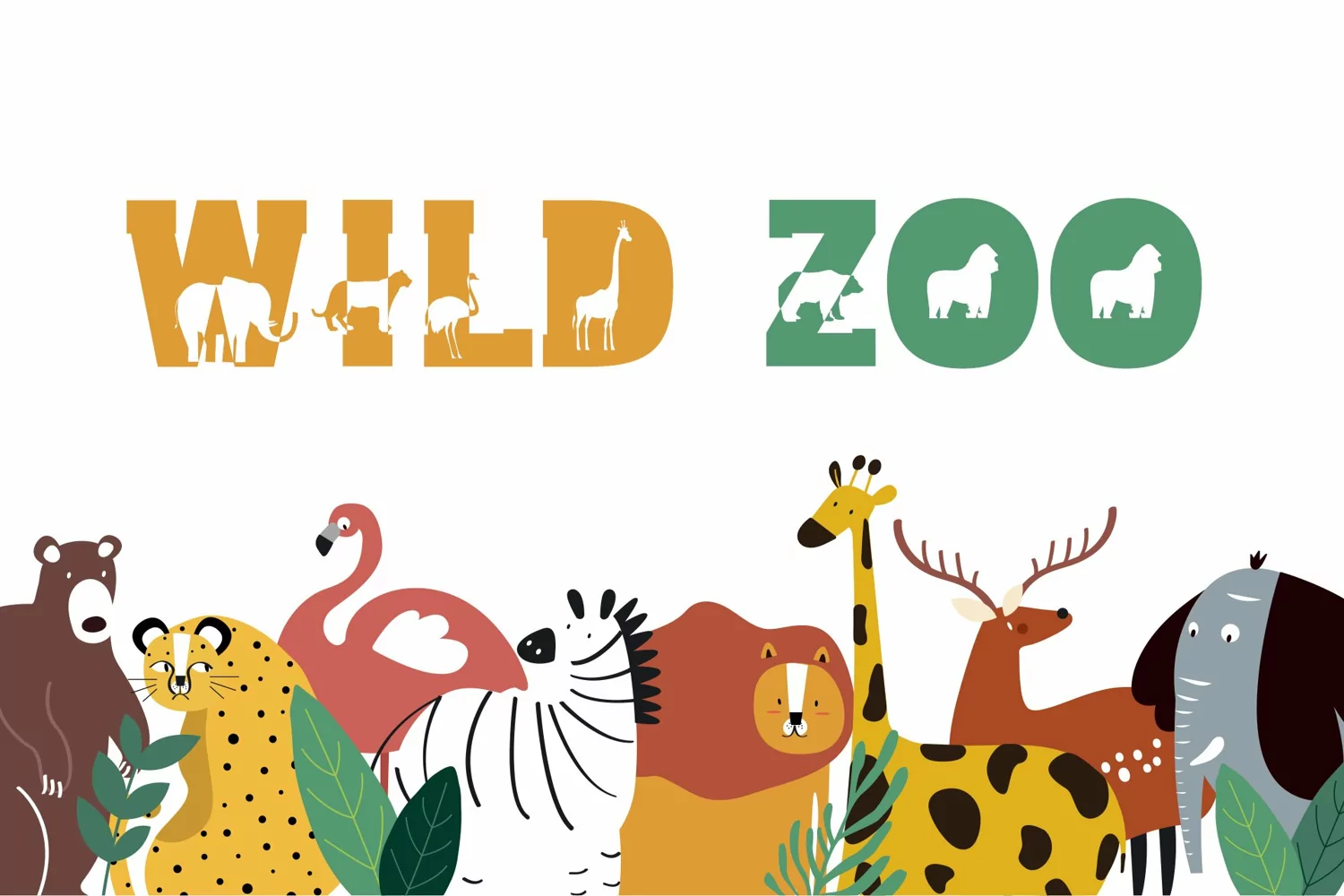
Jungle Zoo Wild Animal Font.
Jungle Zoo is playful silhouette font featuring wild animals.
Perfect for projects such as birthday invitations, book covers, colorful posters, T-Shirt designs ..